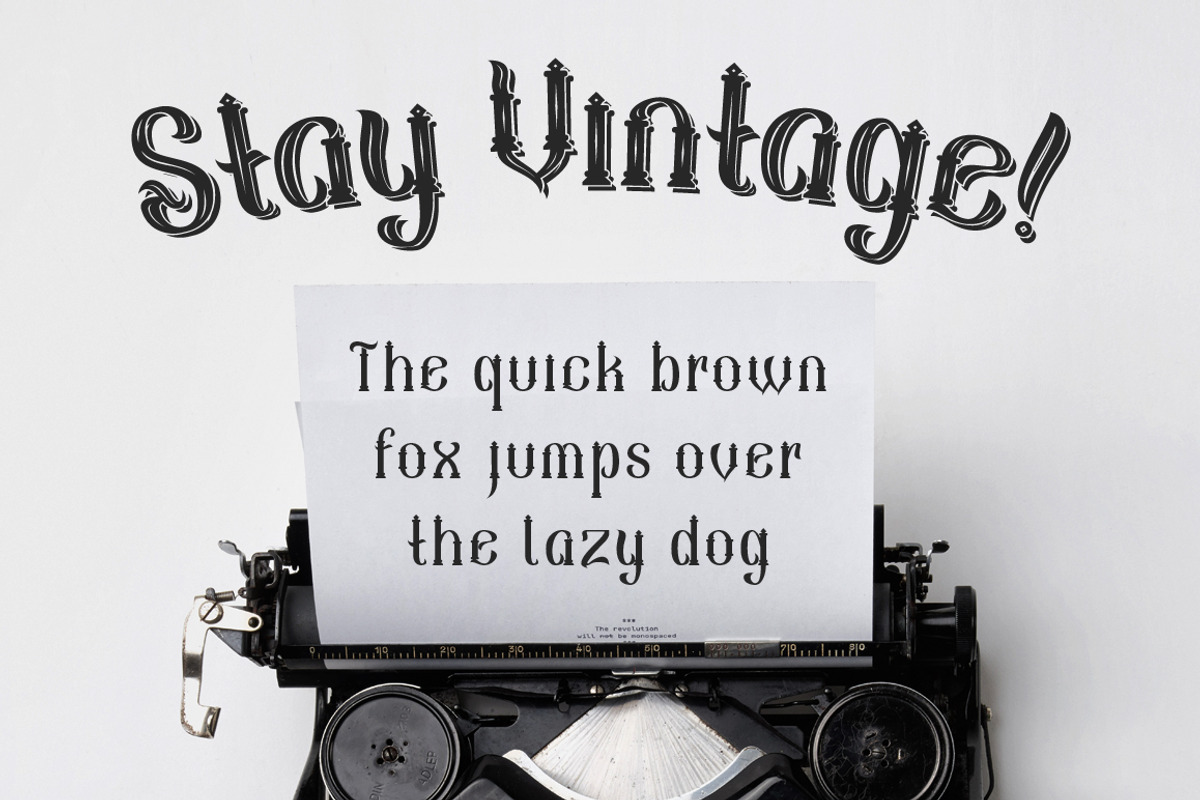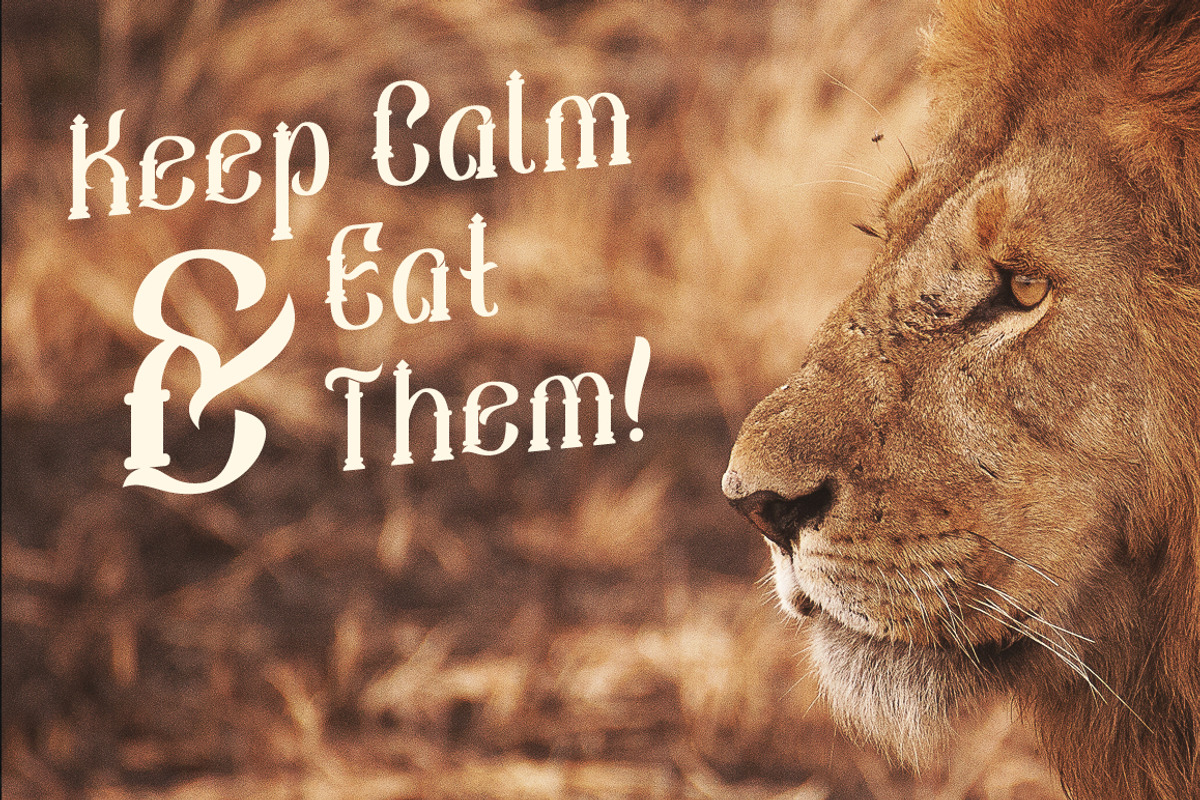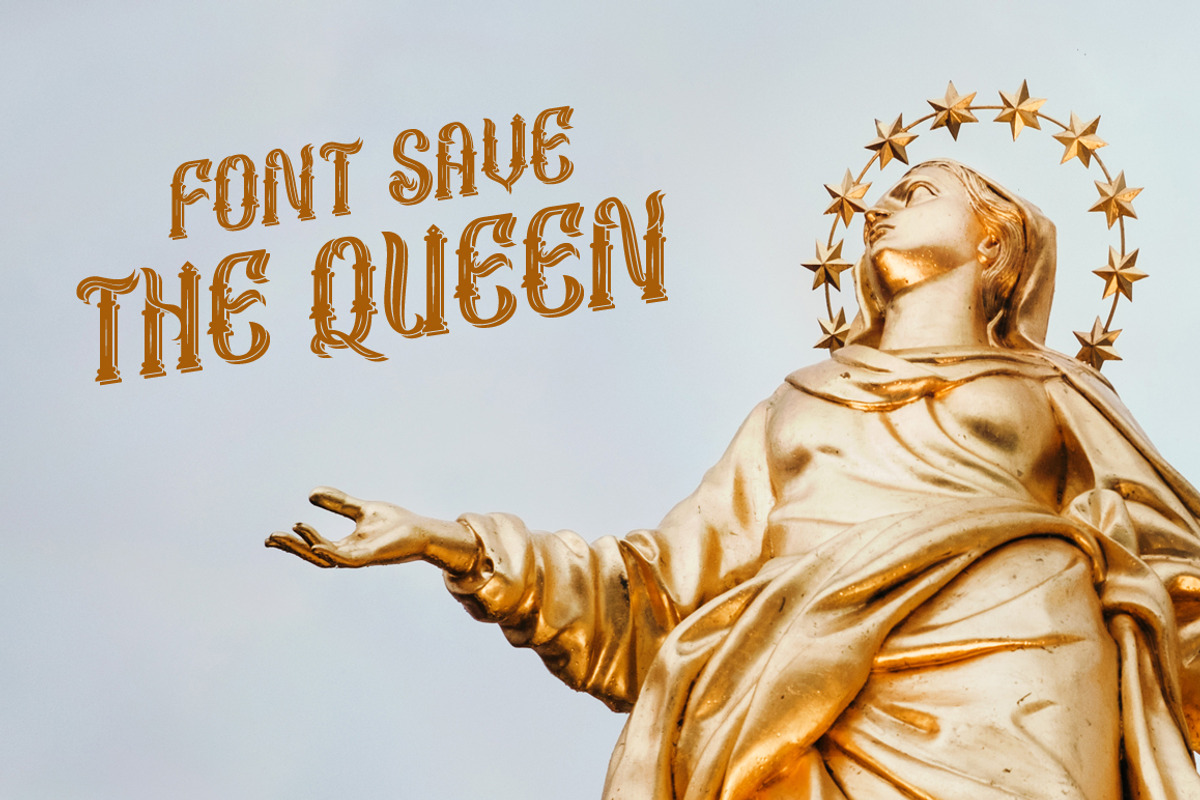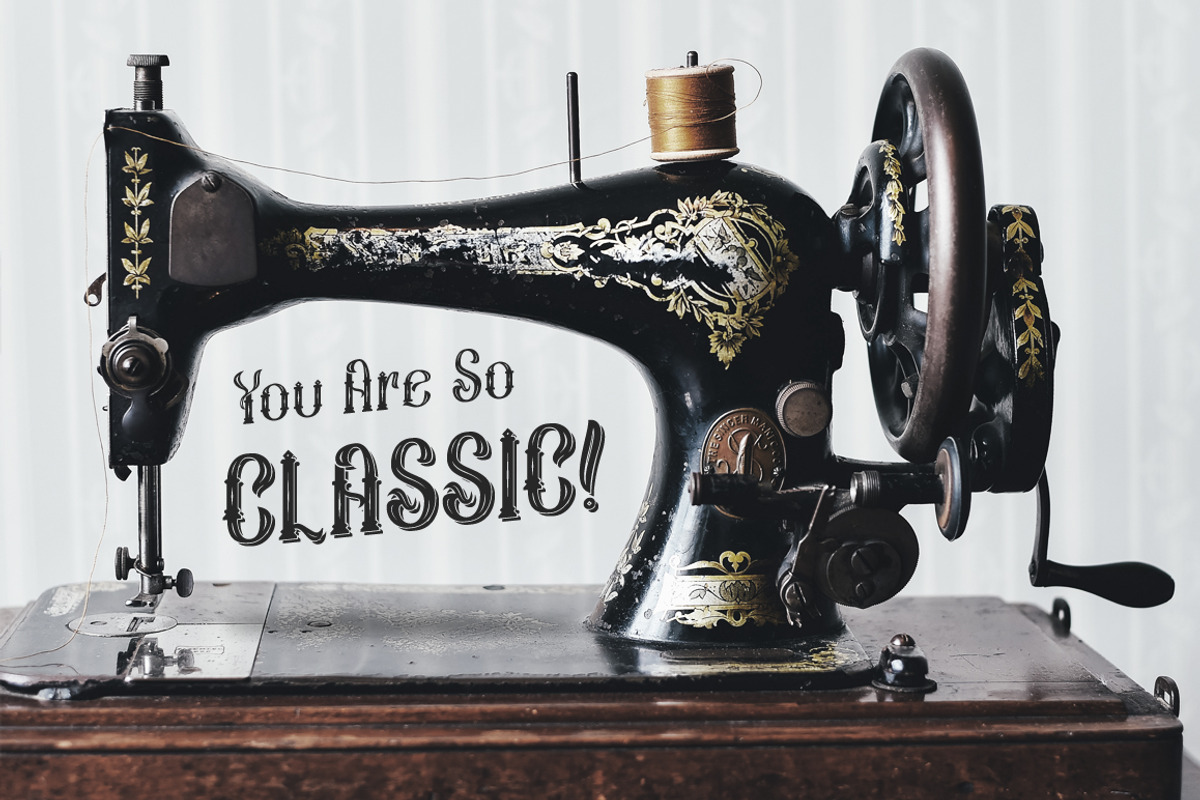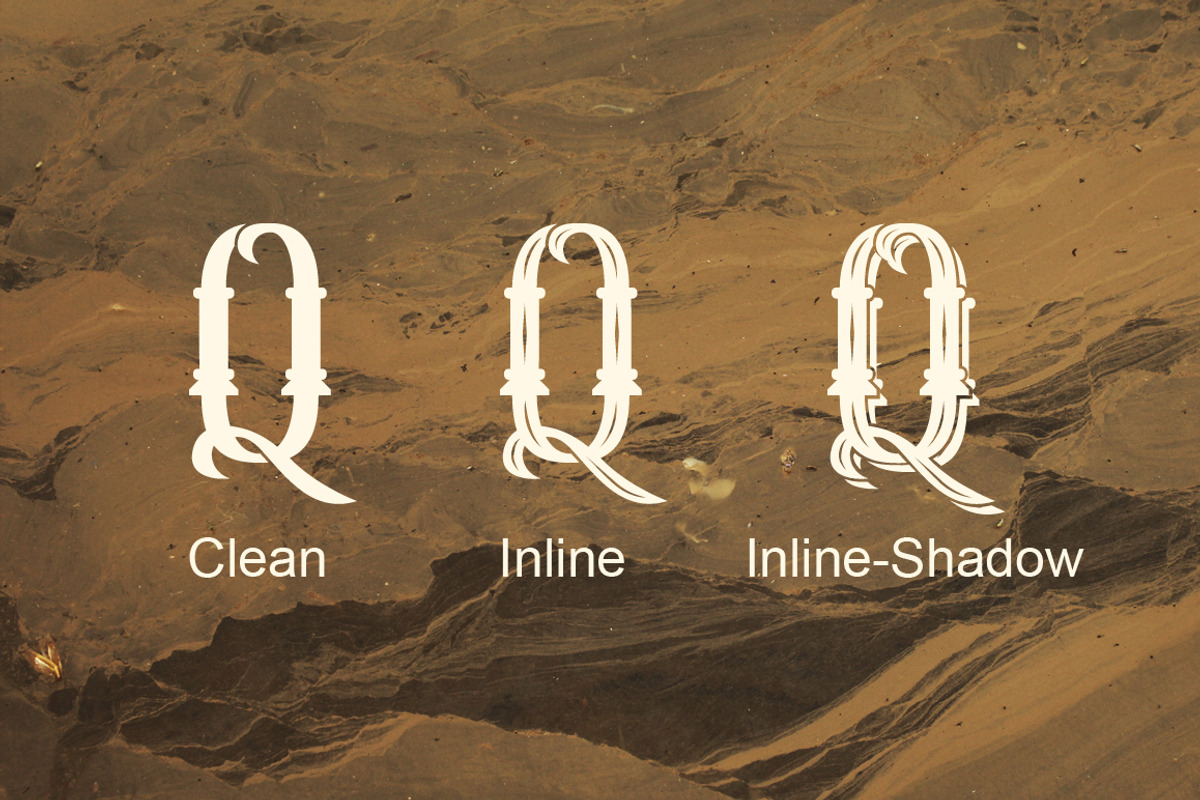
Sekatoan Typeface
Sekatoan Typeface by Arterfak Project is a font selected for branding, posters, packaging, typography.
- comes with three styles, clean - inline, inline-shadow.
- Sekatoan Clean
- Sekatoan Inline-Shadow
- Sekatoan Inline
Sekatoan Typeface by Arterfak Project fits naturally into Branding, posters, packaging, typography.